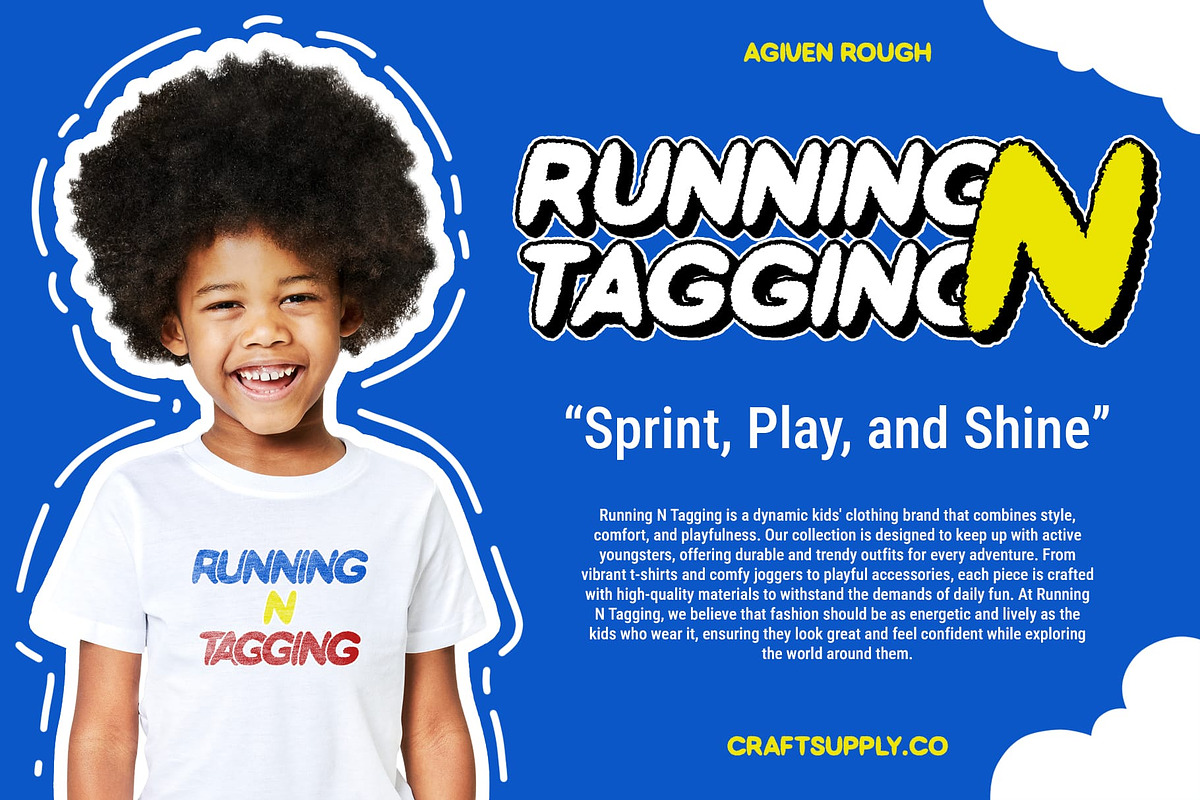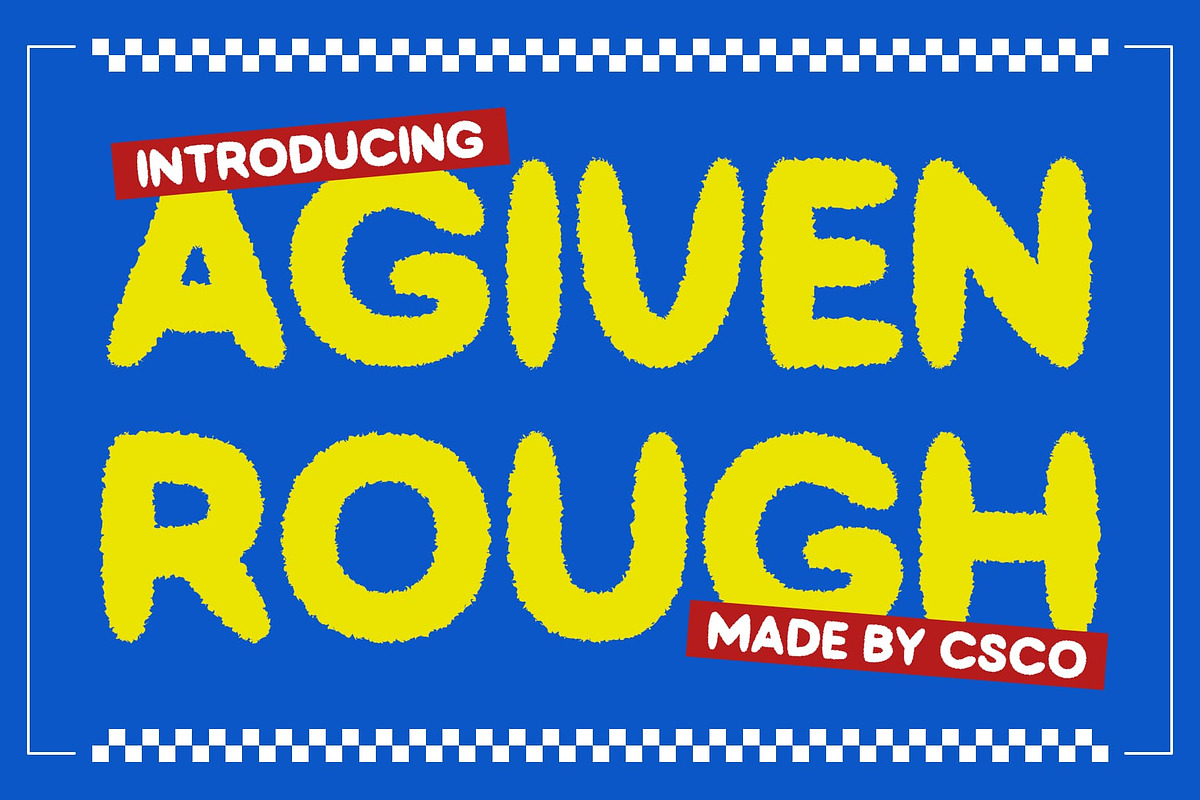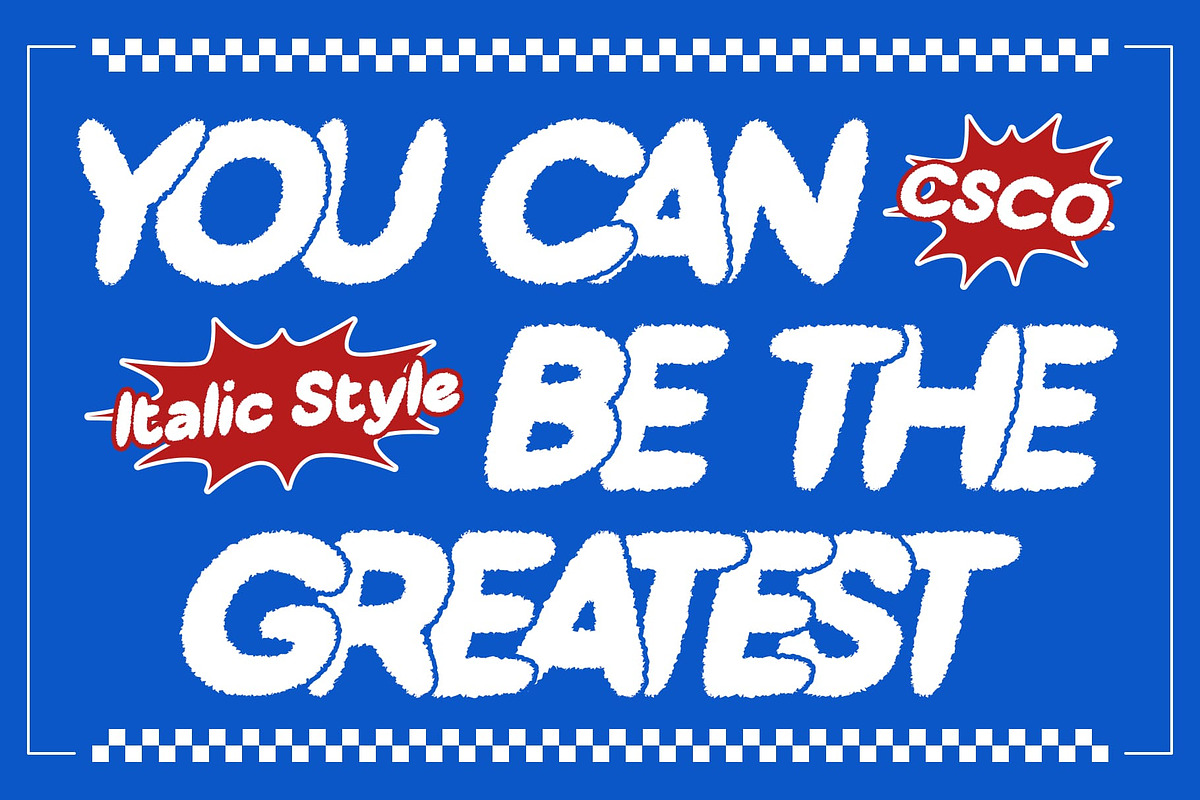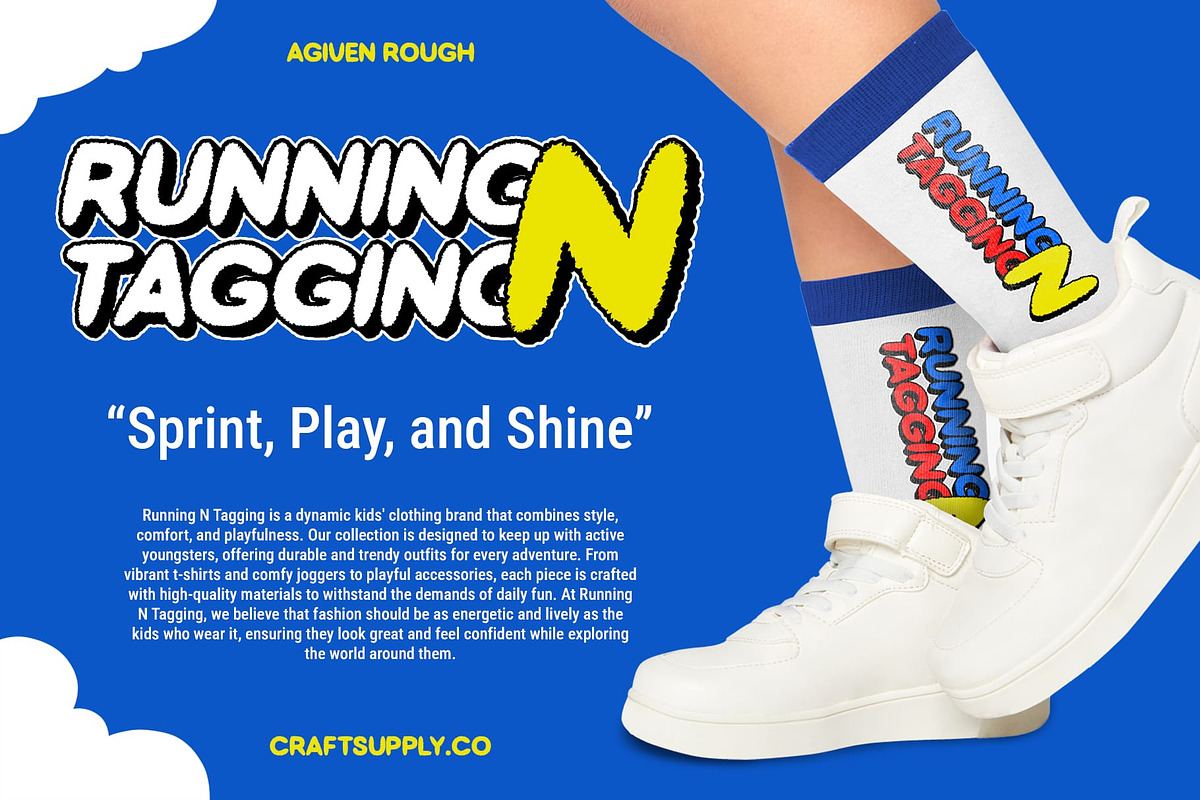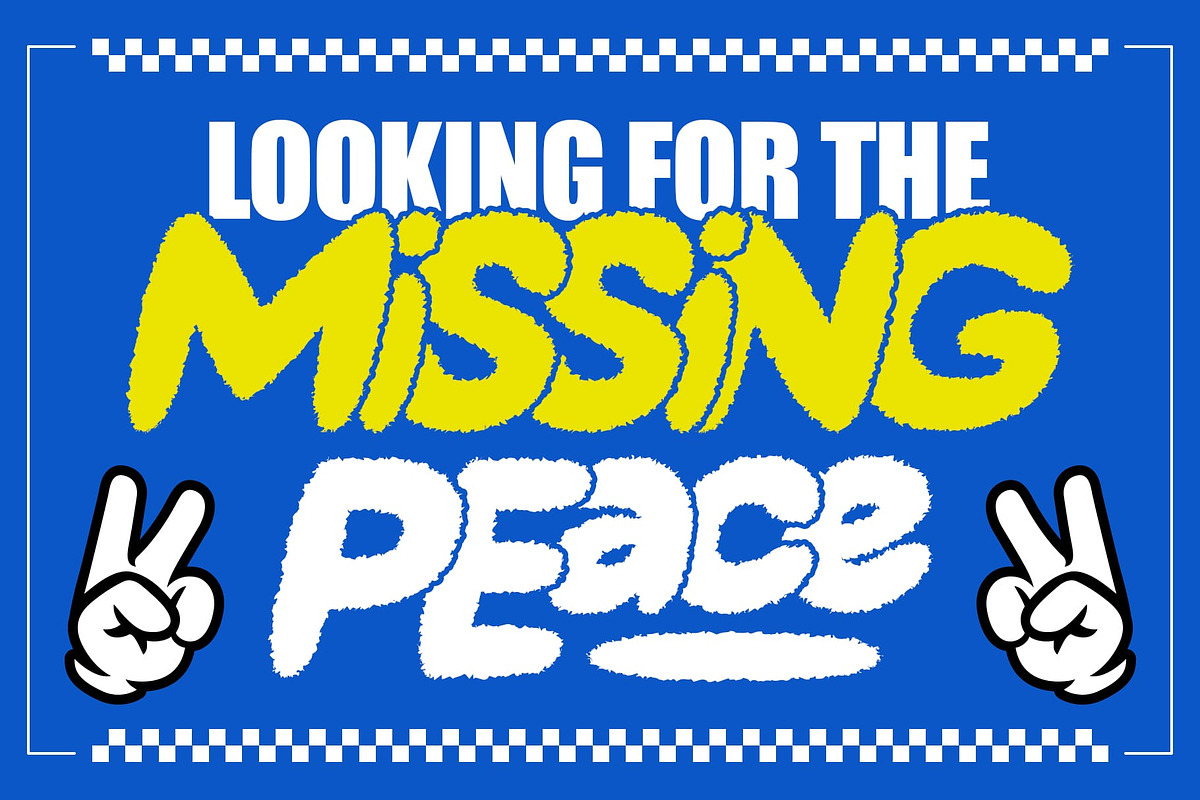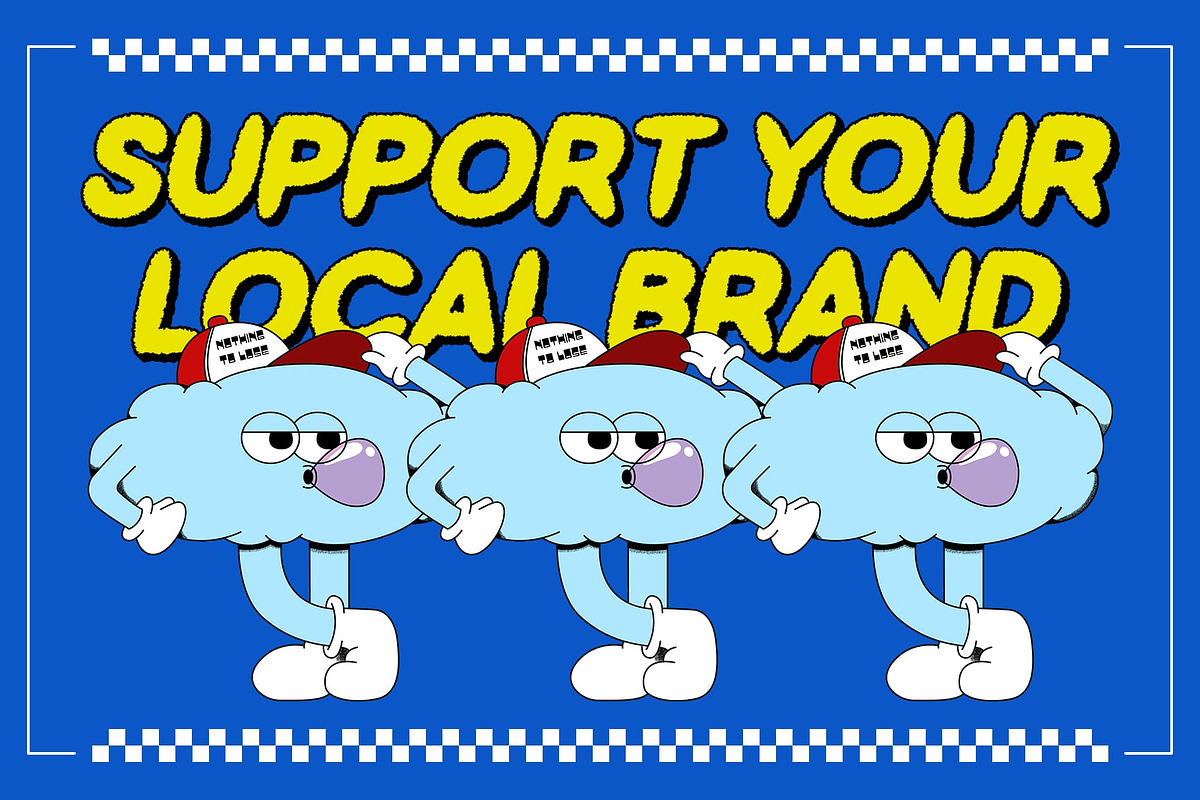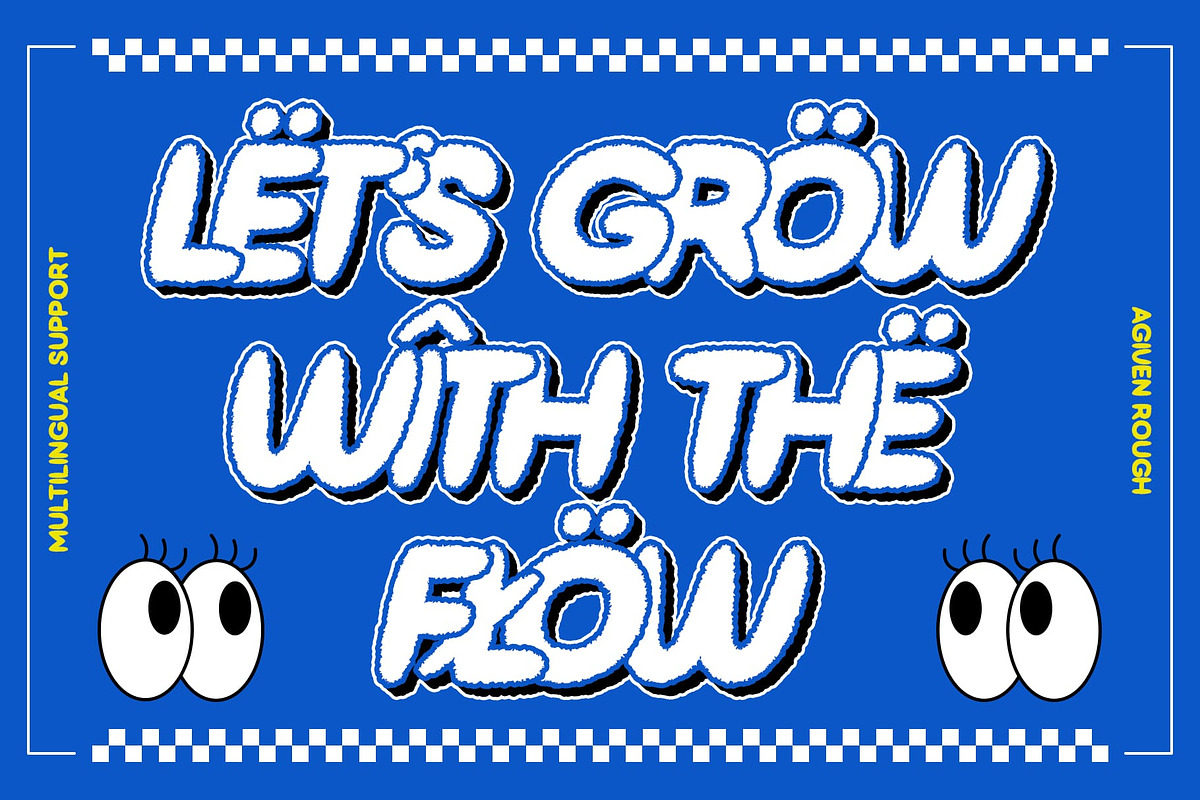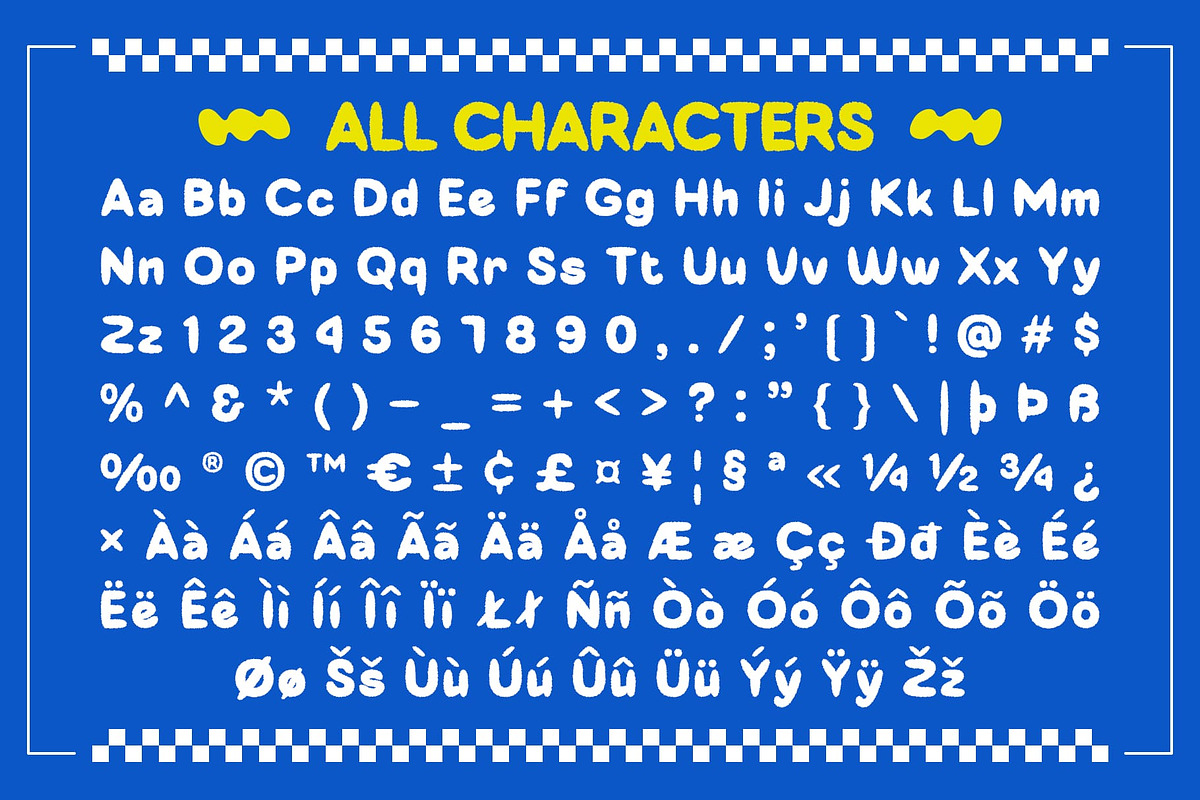
Agiven Rough
Agiven Rough – Display Font
Playful Bubble Shapes Agiven Rough is a display font that radiates cuteness and fun with its distinctive bubble shapes. The round, charming design brings a whimsical and playful vibe, perfect for capturing attention and spreading cheer.
Rough Effect with Added Character Enhanced by a rough effect, Agiven Rough introduces a touch of ruggedness that adds depth and character to its bubbly design. This combination of softness and texture makes the font both unique and visually engaging.
Ideal for Cheerful and Unique Designs Perfect for any project that needs a cheerful and energetic touch, Agiven Rough is ideal for playful branding, vibrant posters, and creative designs. Its delightful aesthetic ensures that your visuals stand out with a distinctive and memorable flair.
Delightful and Energetic Impression Bring a joyful and eye-catching element to your designs with Agiven Rough. Its playful bubble shapes and rough texture combine to offer a delightful, energetic impression, making it an excellent choice for any project that aims to inject fun and personality.